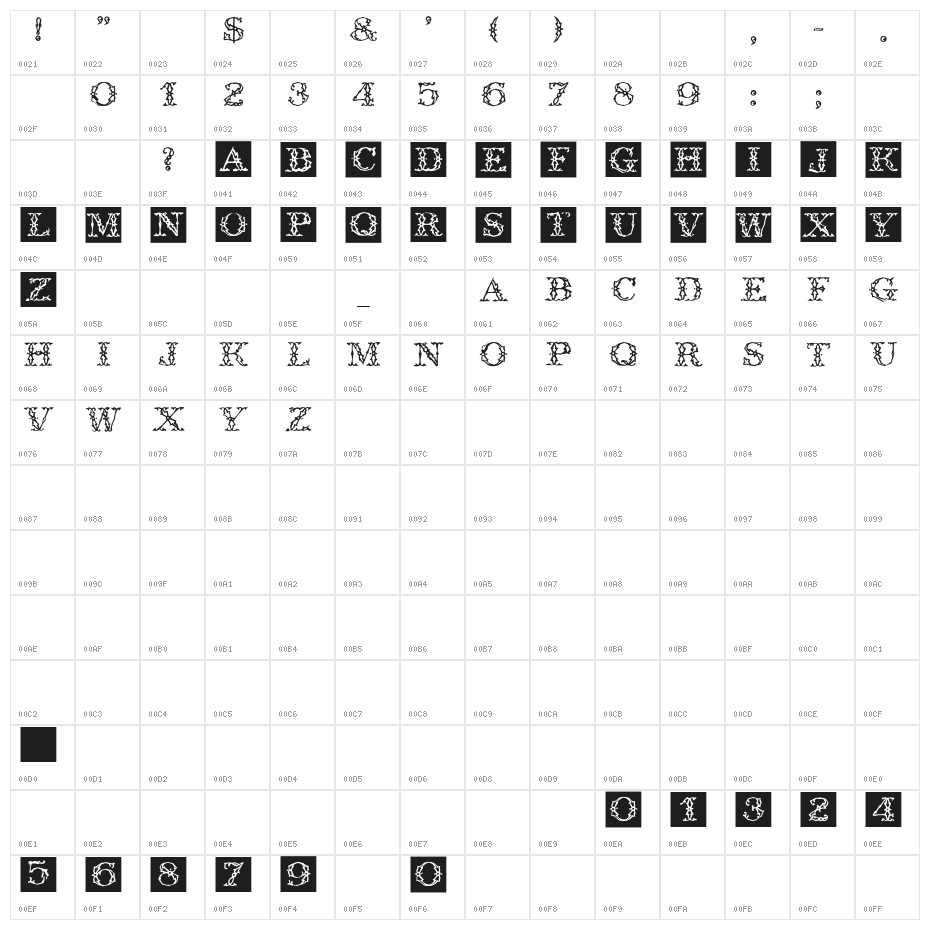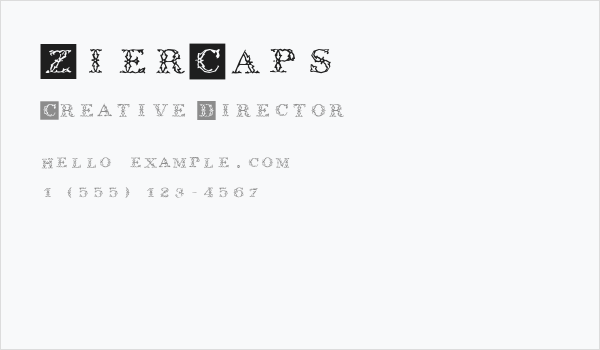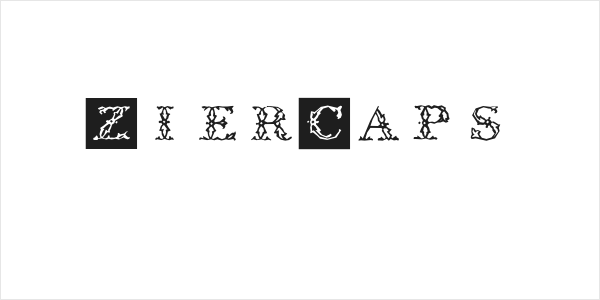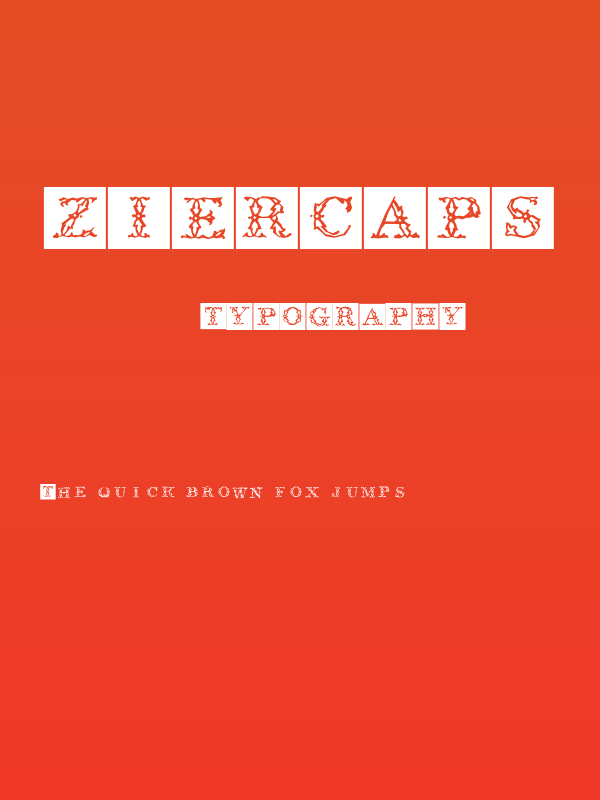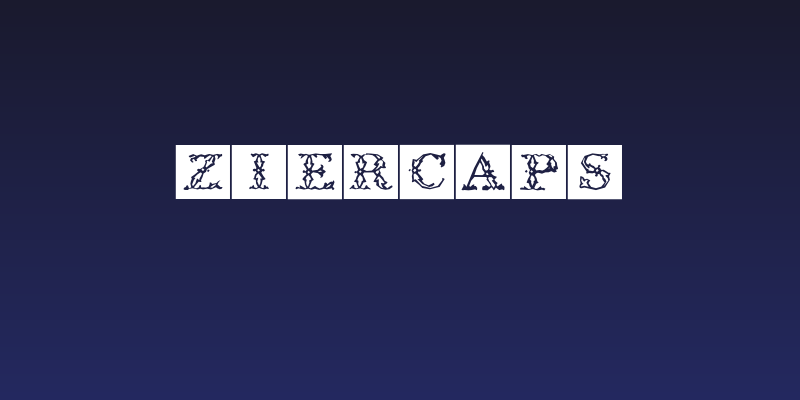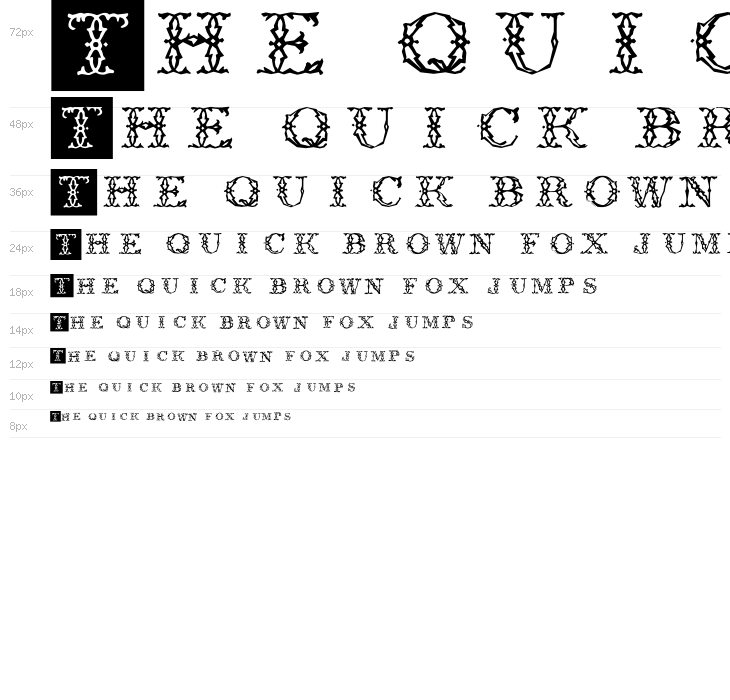
ZierCaps Font
ZierCaps Description
This font features an intricate and decorative style, characterized by ornate embellishments that resemble thorny vines or branches entwined around each letter. The uppercase and lowercase letters maintain a consistent theme, with each character appearing as if it is part of an elaborate, nature-inspired design. The numbers and special characters follow the same aesthetic, making the entire set cohesive and visually striking. The font's unique appearance makes it stand out, ideal for projects that require a touch of elegance and complexity. Its detailed design suggests a careful and artistic approach, suitable for creative and decorative purposes.
WidthNormal
Character SpacingMonospaced
ContrastMedium
Overall StyleDecorative
Use CaseLogos, Headlines, Decorative text
Proposed ProjectsIdeal for wedding invitations, fantasy-themed posters, book covers, and decorative branding.